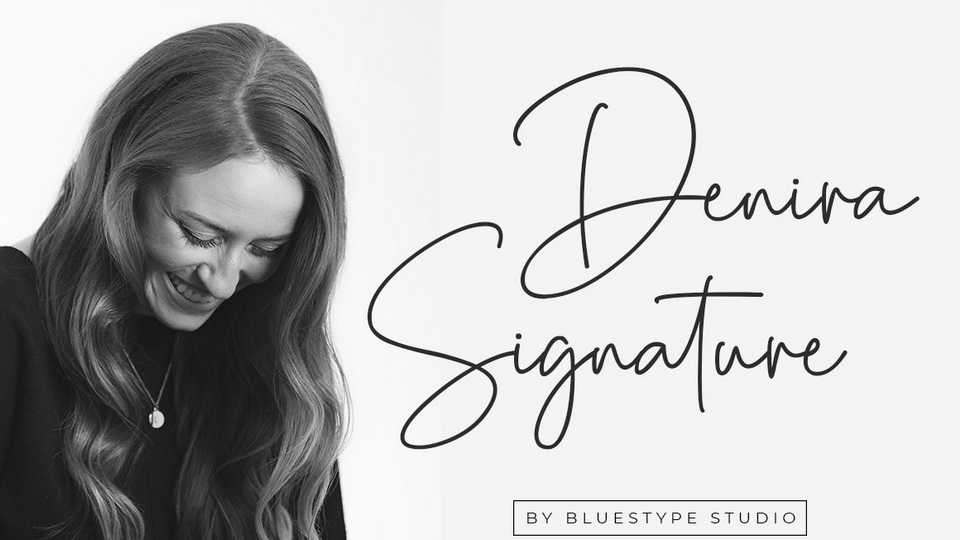
Download Denira font, an incredibly stunning signature typeface that will turn any design idea into a true stand out. Denira font is suitable for use on business cards, weddings, t-shirt designs, logos, magazines, quotes, fashion, watermarks, invitations, signatures.